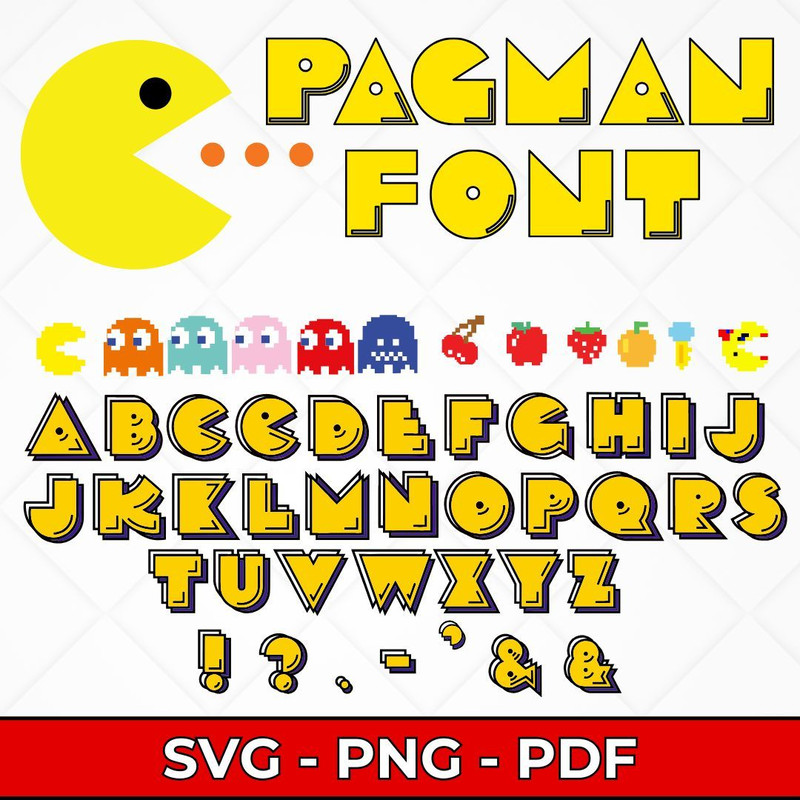
Pacman Font SVG Bundle, Retro Arcade Fonts, Pacman Alphabet SVG, Gaming Fonts for Cricut, Pacman-Themed Fonts for Crafts
Bring retro gaming vibes to your crafting projects with this Pacman Font SVG Bundle! Inspired by the iconic arcade game, this bundle is perfect for creating fun, nostalgic designs. Ideal for Cricut, Silhouette, and other cutting machines, it’s a must-have for gaming enthusiasts and crafters alike.